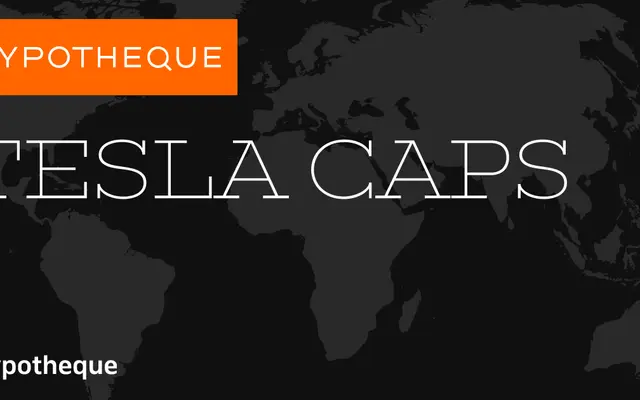
Tesla Caps
Typotheque · Nikola Djurek · 2015
A capitals-only titling slab from Nikola Djurek, offered in three contrast styles designed to pair with the broader Tesla type system.
Designed by Nikola Djurek and released in 2015, Tesla Caps provides three optical variants: a monolinear (A), a slightly inverted contrast (B), and a tightly spaced high-contrast inverted style (C). Each runs across seven weights from Hairline to Bold, with italics throughout. It is conceived as a companion to Tesla Slab, Tesla Mono and Tesla Stencil, forming a complete typographic system suited to demanding editorial and identity work.
A capitals-only slab serif conceived for headlines and titles, offered in three distinct contrast styles including monolinear, inverted, and high-contrast inverted. Its titling-only nature and strong optical impact place it firmly in the display category.